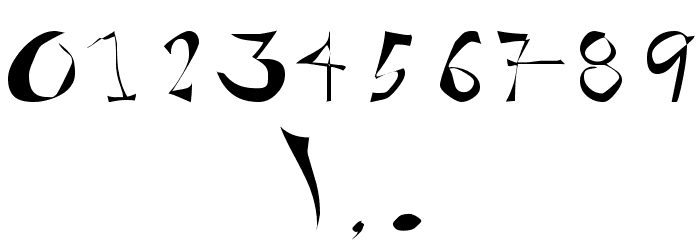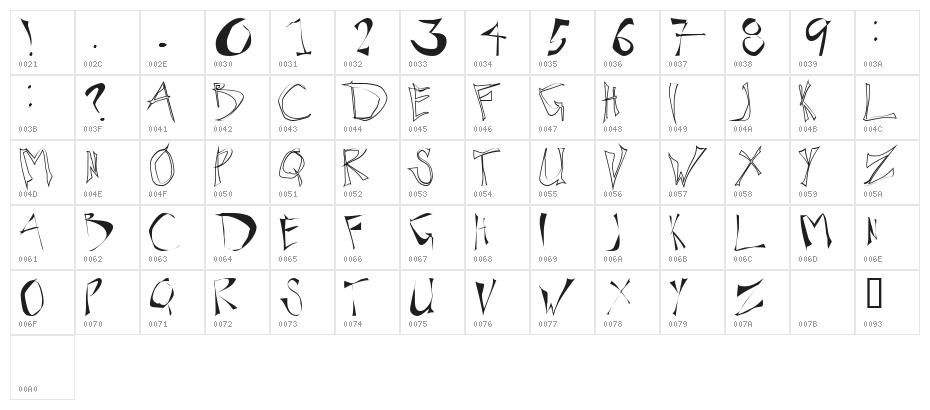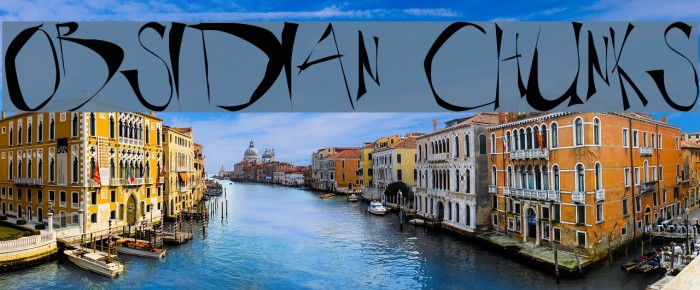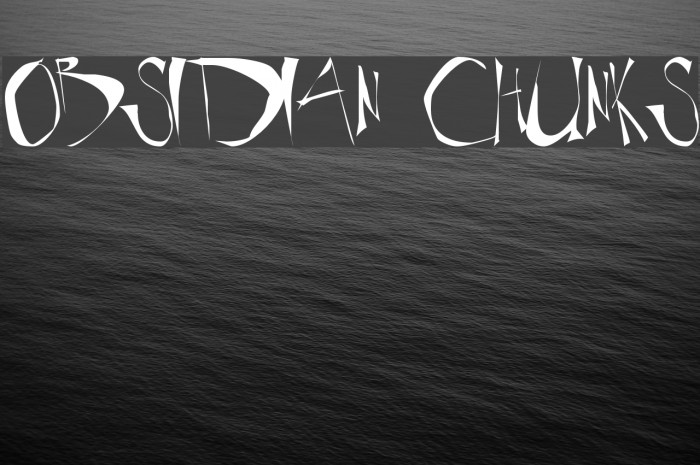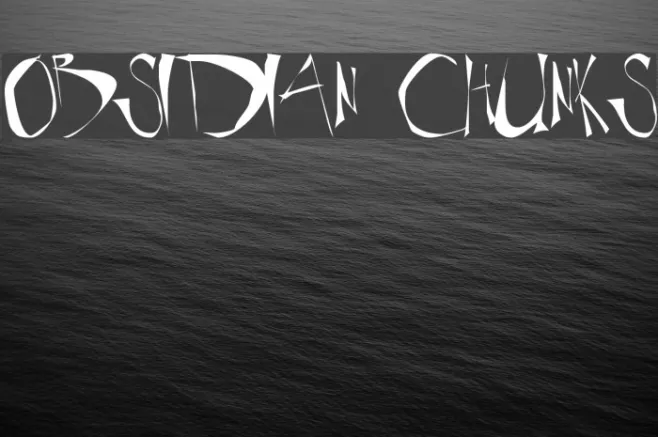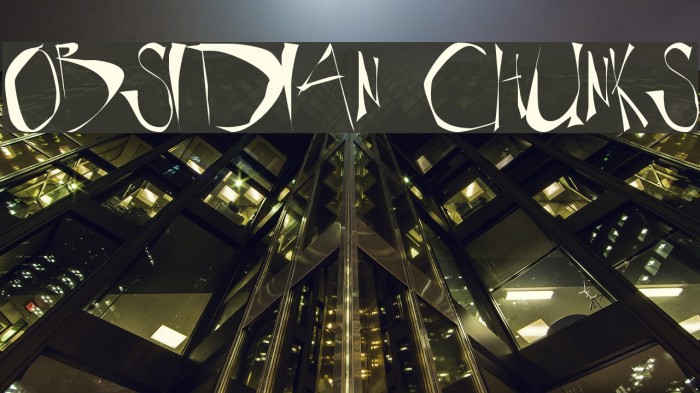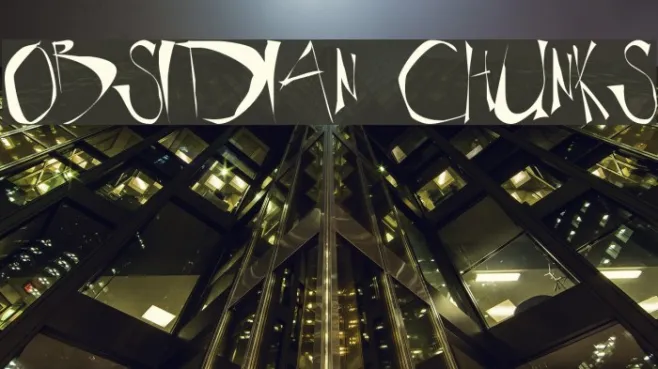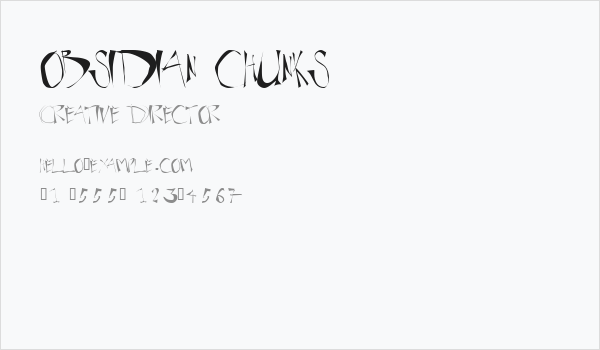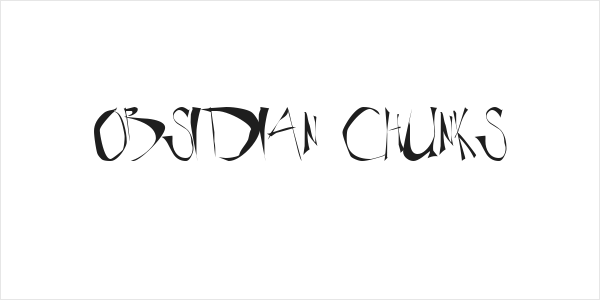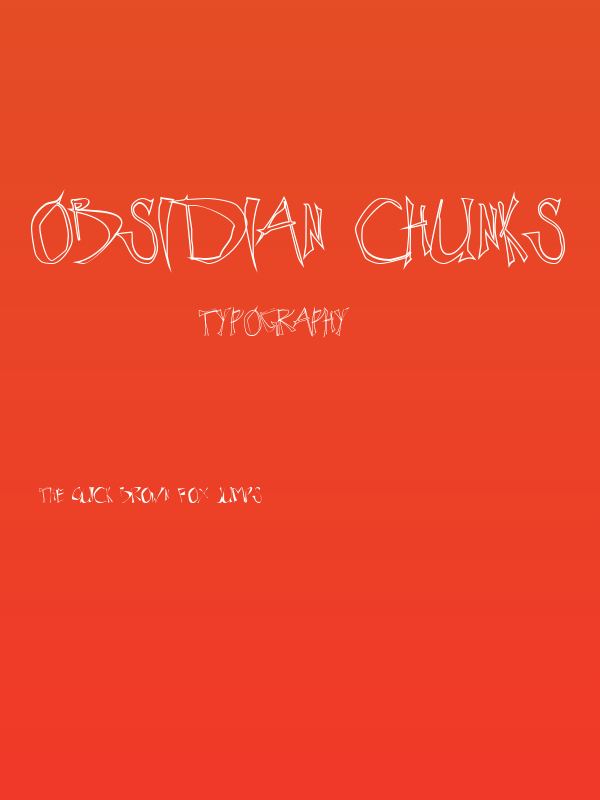
obsidian chunks Font
obsidian chunks Description
This font features a highly stylized and abstract design, characterized by its jagged, angular lines and fragmented appearance. The uppercase letters exhibit a sharp, edgy aesthetic, while the lowercase letters maintain a similar style with slightly more fluidity. The numerals and special characters follow the same fragmented theme, adding a unique and artistic flair. The font's overall look is reminiscent of shattered glass or broken shards, giving it a dynamic and energetic feel. Its unconventional form makes it stand out, perfect for projects that require a bold and artistic statement.
| Use Case | Logos, Posters, Artistic projects |
| Proposed Projects | Ideal for album covers, posters, and graphic design projects that require a bold, artistic touch. |